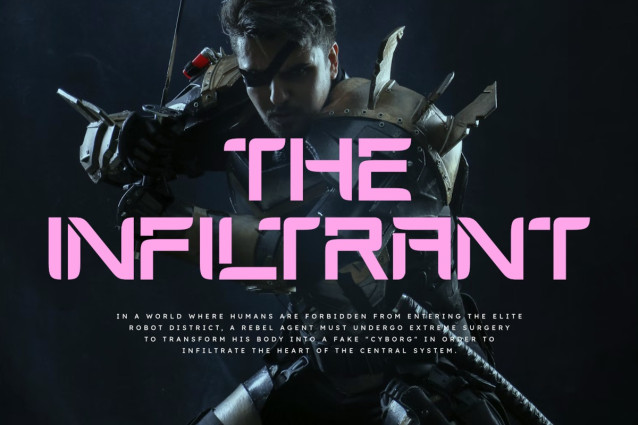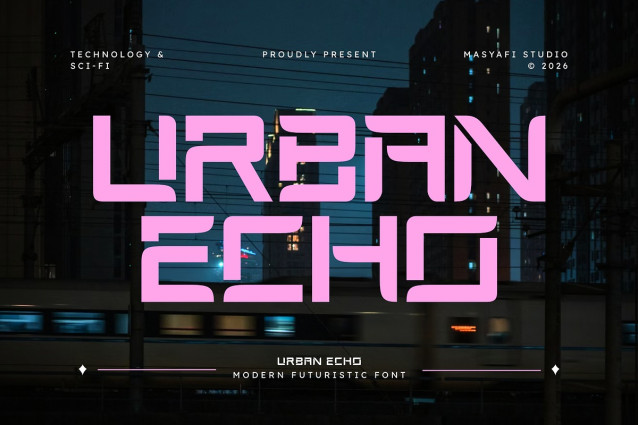
Urban Echo Font
Urban Echo Font a modern futuristic typeface from Masyafi Studio. Inspired by the sleek lines of metropolitan architecture and the digital glow of smart cities, Urban Echo is crafted for designers who want to push the boundaries of contemporary typography.
Urban Echo features a sophisticated “tech-stencil” look, where every curve and cut is meticulously placed to create a rhythmic, high-tech flow. It is the perfect asset for creating immersive gaming identities, sci-fi editorial layouts, futuristic app interfaces, and bold automotive branding. Whether you’re designing for a tech startup or a late-night urban fashion brand, Urban Echo delivers the perfect “echo” of the future.